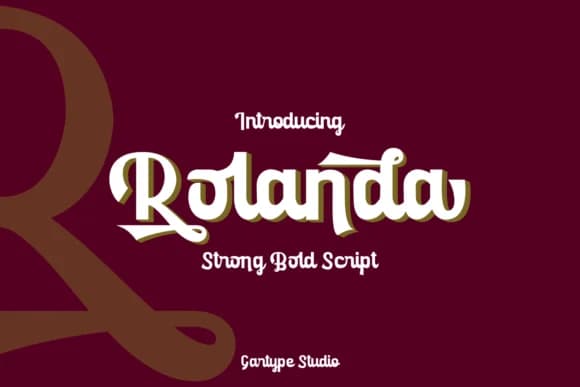
1 / 9About Rolanda Font
Rolanda by GartypeStudio is a bold, handwritten script font with a strong vintage character that brings nostalgic energy to display typography and eye-catching design work. The typeface's thick strokes and expressive letterforms create an unmistakable visual presence, making it particularly effective for projects that need to command attention while maintaining genuine retro sensibility. Whether you're designing vintage cosmetics packaging, crafting retro event invitations, building craft business branding, or creating personalized greeting cards, Rolanda delivers personality and charm with every letter. The font family includes an Extrude variant for added dimensional impact, giving designers creative flexibility to build layered, eye-catching compositions that truly stand out.
This script works exceptionally well for nostalgic poster designs and heritage brand applications that celebrate hand-drawn aesthetics. The consistent weight and deliberate letterforms ensure strong legibility even at display sizes, preventing the font from feeling garish or overstyled. Instead, Rolanda bridges the gap between overly decorative scripts and serious typography, offering designers a font bold enough to lead a design but refined enough to support sophisticated branding applications. The vintage character reads as intentionally retro rather than dated, making it ideal for any brand or project with a compelling nostalgic story.
Rolanda Font is a script font that shines as a display or heading face. Pair it with a clean sans-serif or serif font for body text β the contrast creates a clear hierarchy while the two styles stay balanced and easy to read.